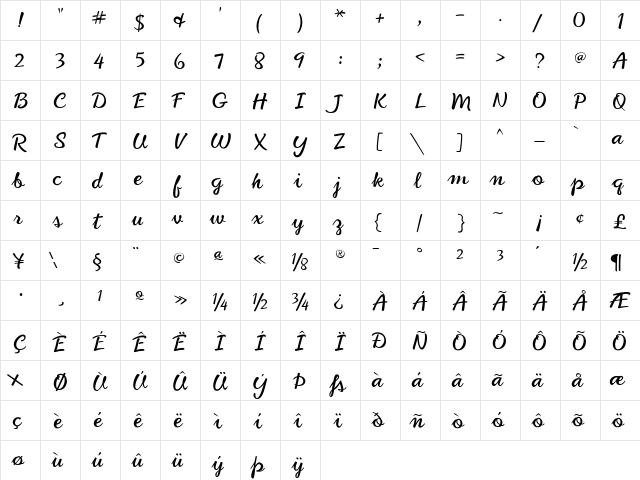
PhoenixScriptFLF Medium Font Preview
PhoenixScriptFLF Medium
PhoenixScriptFLF Medium Font Details
| Foundry | by Richard A. Ware |
Design Context for PhoenixScriptFLF Typeface
PhoenixScriptFLF brings a calligraphic fluidity to the page — its connecting strokes and expressive curves give it an unmistakably human quality.
Font Pairing: Combine PhoenixScriptFLF with a simple geometric sans for maximum contrast — the tension between flowing curves and clean structure is a classic typographic pairing.
Pro Tip: Pair PhoenixScriptFLF with a clean sans-serif for supporting text. The contrast between fluid script and geometric structure creates an elegant typographic hierarchy.